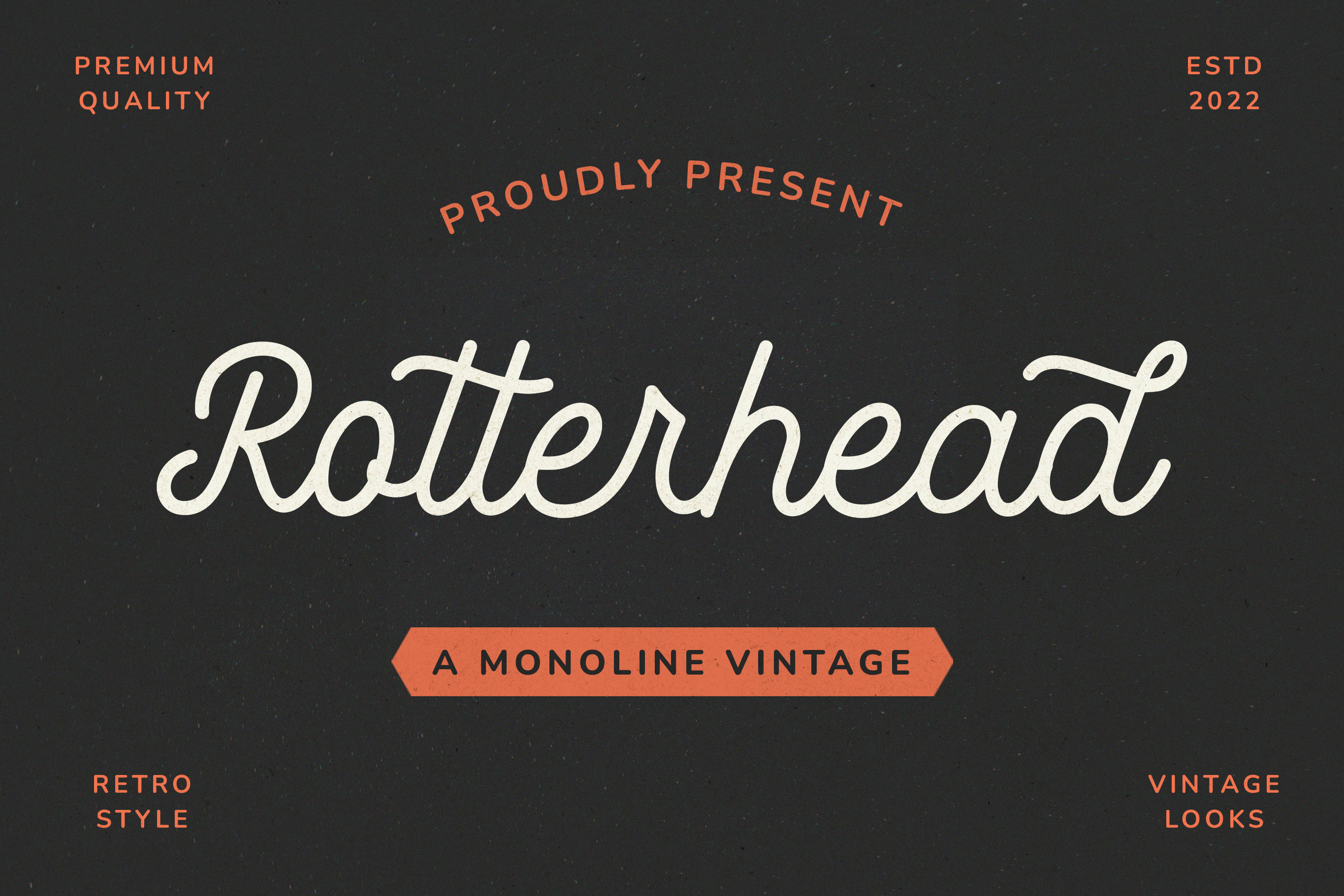
Rotterhead Monoline Vintage Font
Hello everyone, I would like to introduce Rotterhead a monoline script font with a vintage look.
Rotterhead can also be used for branding projects, logos labels, t-shirts, merchandise, social media posts, posters, magazines, advertisements, product packaging, watermark, quotes, and more.
- Letters, numbers, symbols, punctuation, alternates, and ligatures
- Fonts include multilingual support